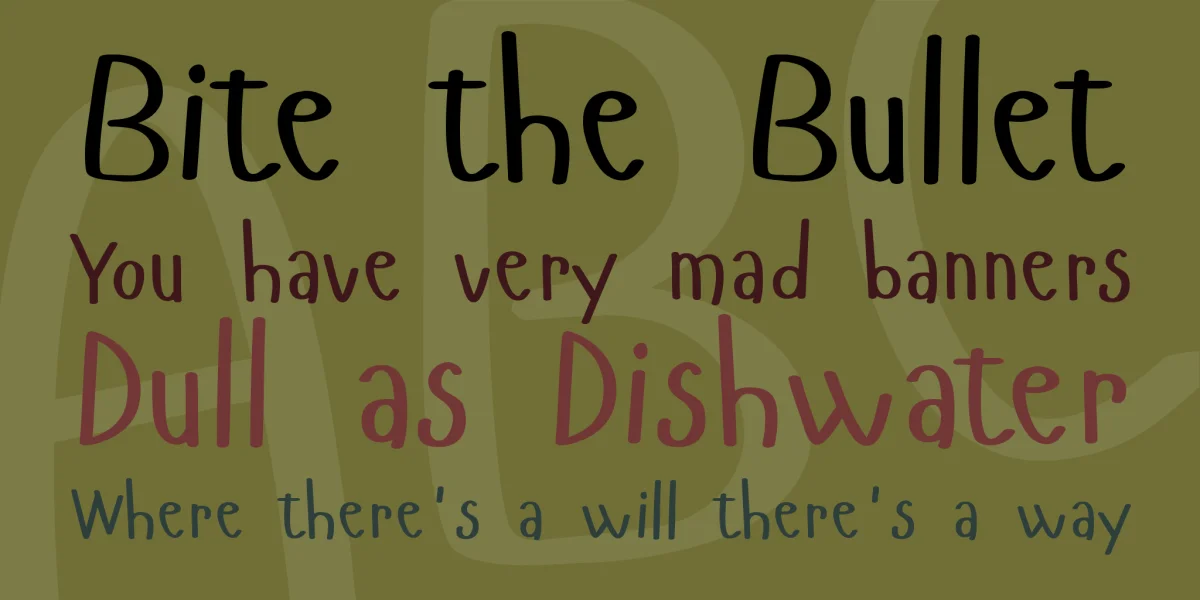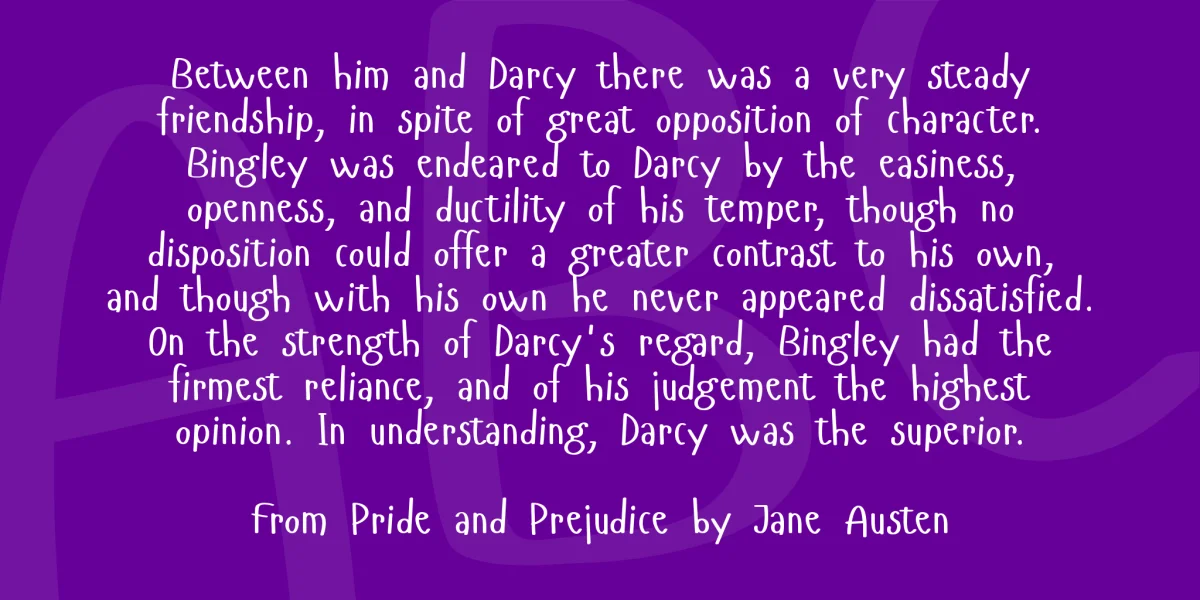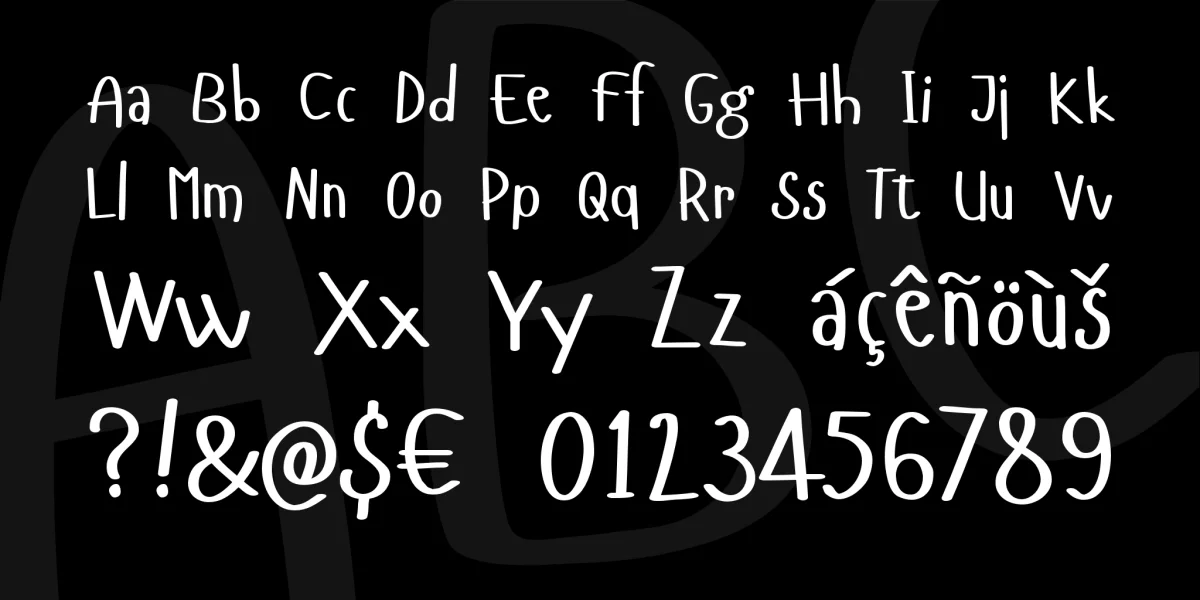
HANGYABOLY is a "freemouse" experimental cartoonish font, I drew the letters directly and spontaneously into the font software with the mouse (thats what I call "freemouse", after "freehand"). No scratch, no background tracing. It means Ant Hill, I named it after the "g" what reminded me an ant. This font is free for PERSONAL use only. For any commercial use (anything you make money from), you must make a paypal donation.